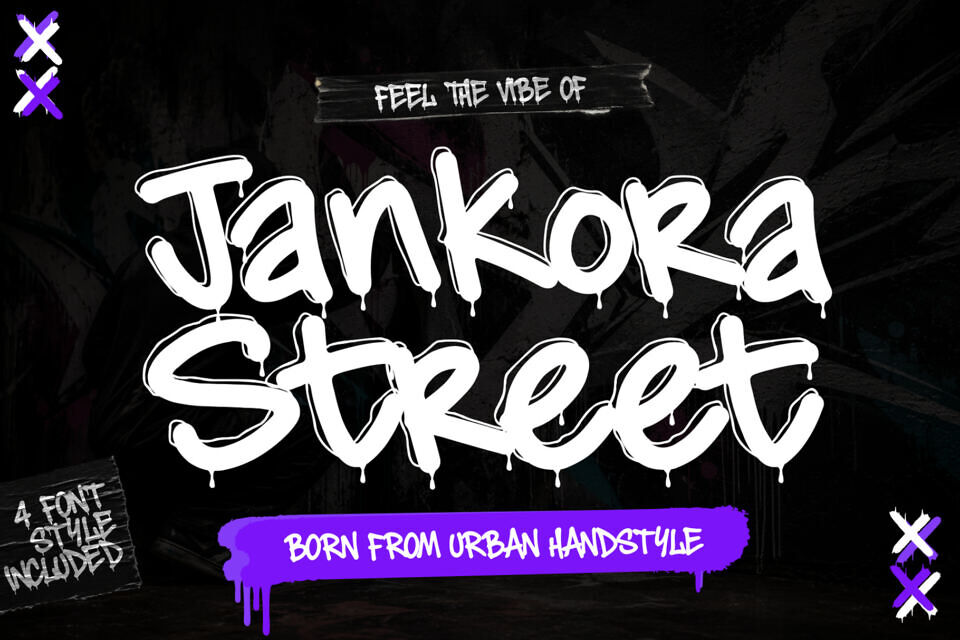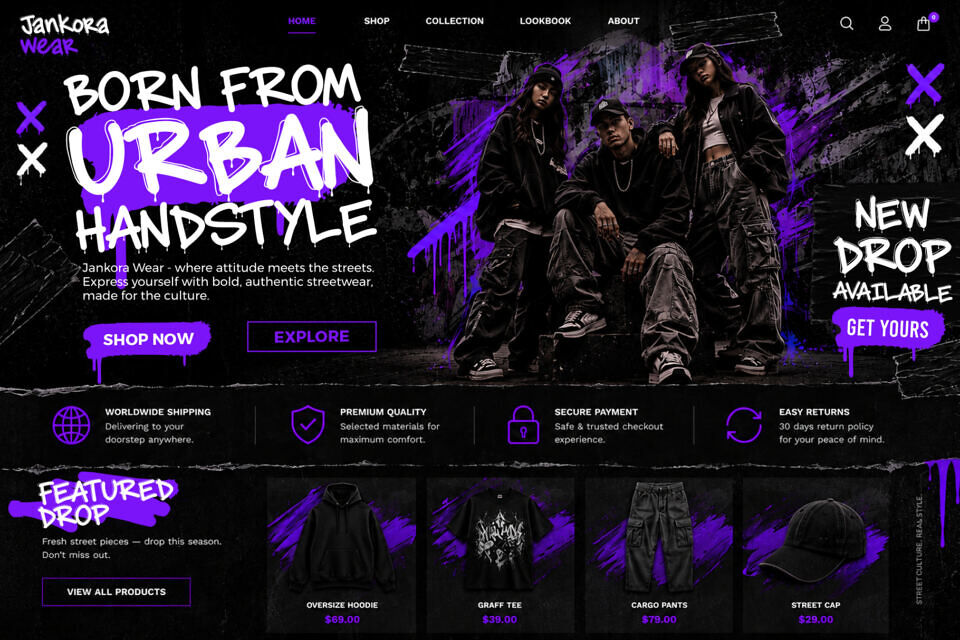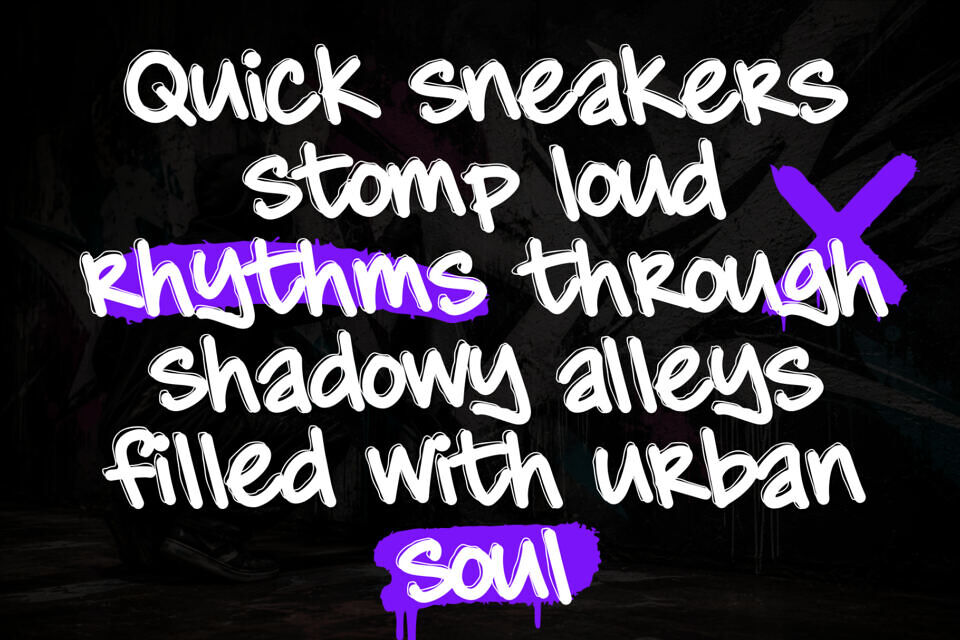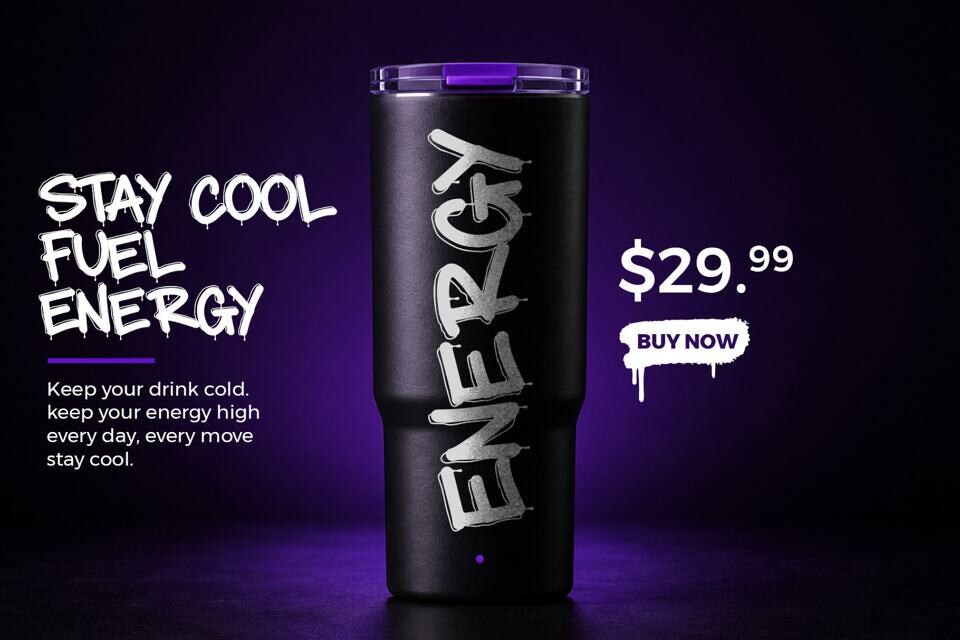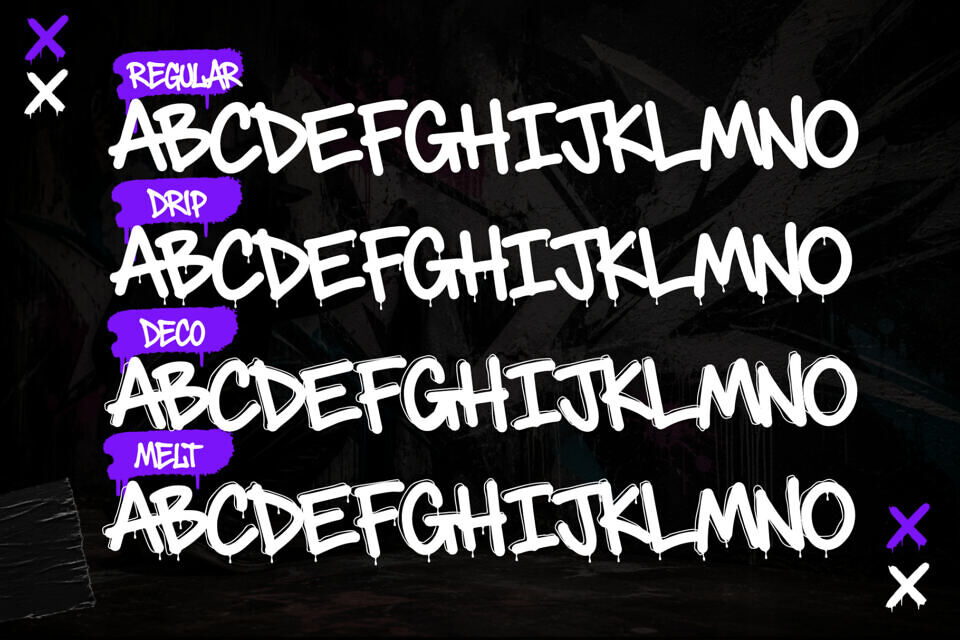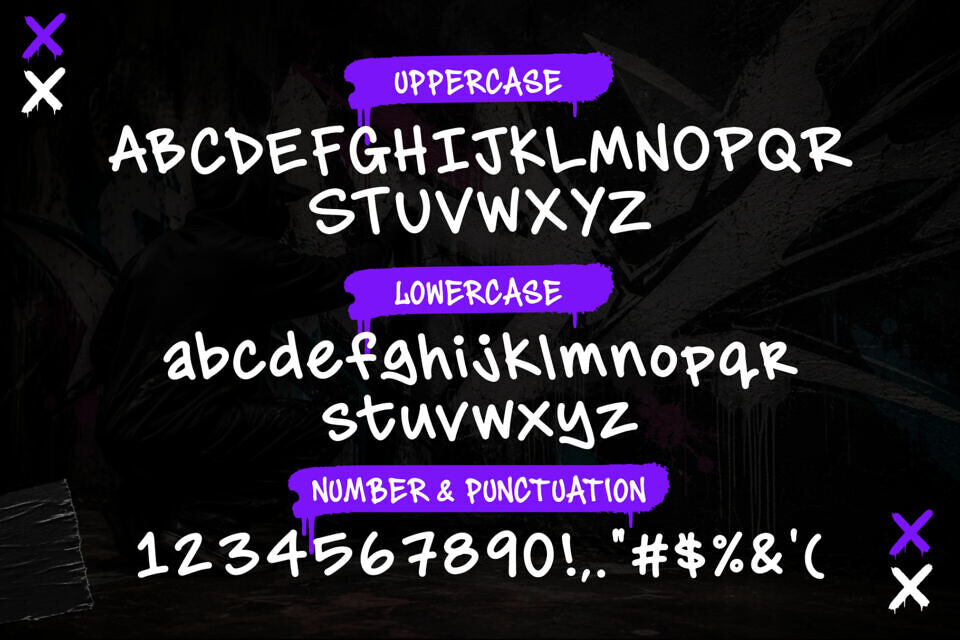
Jankora Street Font Family
Jankora Street is a powerful dripping graffiti font inspired by authentic urban street culture, modern graffiti lettering, underground hip hop aesthetics, and bold decorative typography trends. Designed with expressive monoline strokes and dripping graffiti details, this decorative street font delivers an energetic visual identity that instantly grabs attention in any creative project.
This font is packed with immense marketplace value, arriving as a 4 font style collection to give designers total creative leverage. It is an extraordinary selection for hip-hop album covers, skate shop branding, modern streetwear merchandise, extreme sports graphics, and gaming community overlays.